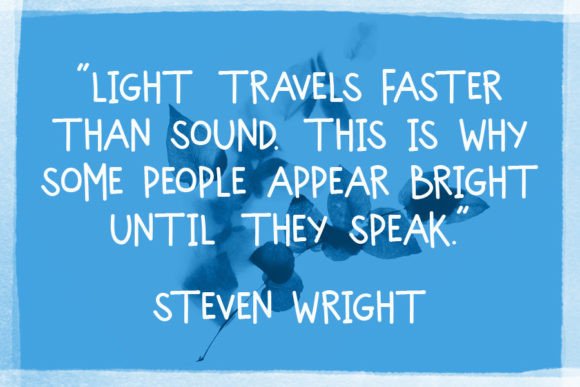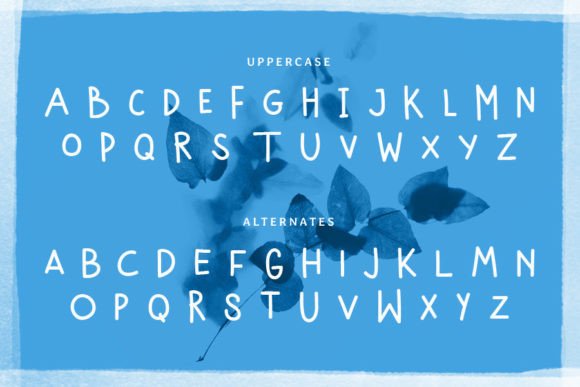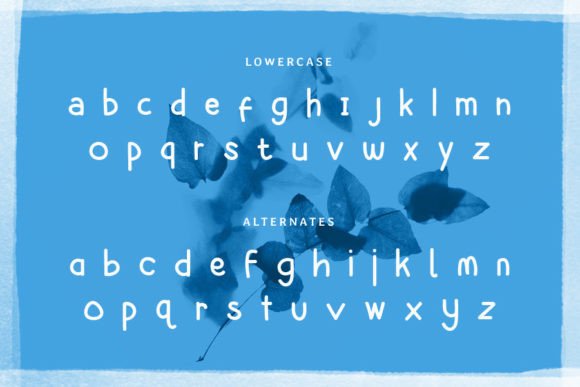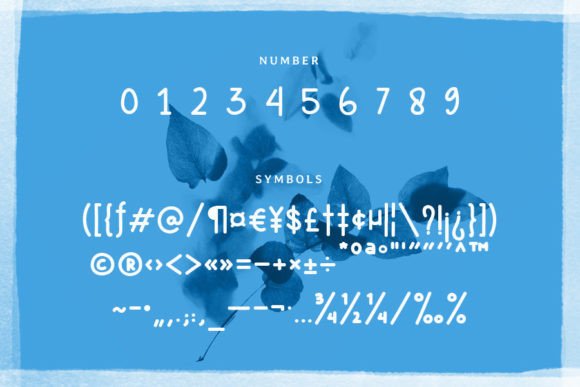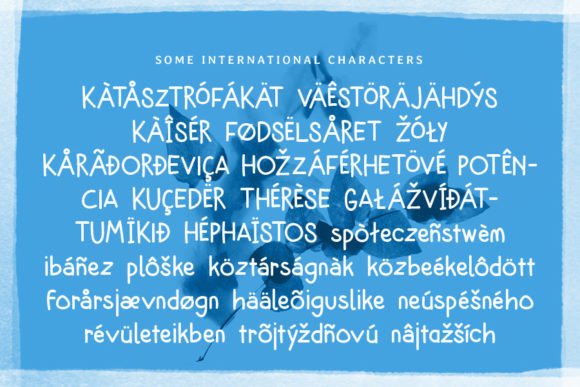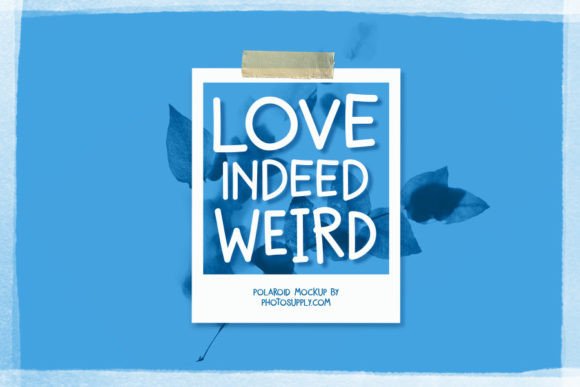
Introduction to Karambolsky Font
Have you ever stumbled upon a font that perfectly captures the essence of a creative project? For designers, it’s that moment when all the pieces come together, and the design begins to shine. I still remember the day I discovered the Karambolsky Font – it was like a breath of fresh air for my next project. The moment I added it to my design, I knew I had found something special.
The Karambolsky Font is a unique and fun handwritten font that adds a touch of personality to any design. With its transparent background and high-quality design, it’s the perfect resource for designers looking to elevate their creative projects. Whether you’re working on a birthday card, a movie title, or any other project, this font is sure to brighten up your design and leave a lasting impression.
Key Features of Karambolsky Font
- High-quality design resource suitable for various creative projects, including digital art and graphic design.
- Features a transparent background, allowing for easy layering and customization in your design.
- Includes a range of glyphs and characters, ensuring versatility in your design project.
Honest Review: Karambolsky Font
- What works well: ✨ The font’s high quality and modern aesthetic make it perfect for a variety of projects, from digital interfaces to print materials. I particularly love the creative freedom it provides, allowing me to experiment with different typography styles.
- What works well: ✨ The font’s transparent background feature is incredibly useful for creating visually appealing and layered designs.
However, there are a few limitations to keep in mind: ⚠️ The font may not be suitable for projects requiring a lot of text, as it can be quite busy and overwhelming. Additionally, some users may find the font’s character set to be limited for certain creative applications.
The Karambolsky Font is a versatile and high-quality design resource that offers a unique aesthetic for creative projects. With its transparent background, this font is perfect for use on various design elements, from logos to graphics.
To maximize the effectiveness of the Karambolsky Font, use it on a high-contrast background to make the text stand out. Experiment with different font sizes and colors to create visually appealing combinations.
The Karambolsky Font is ideal for use in various creative projects, including:
- Typography-based art